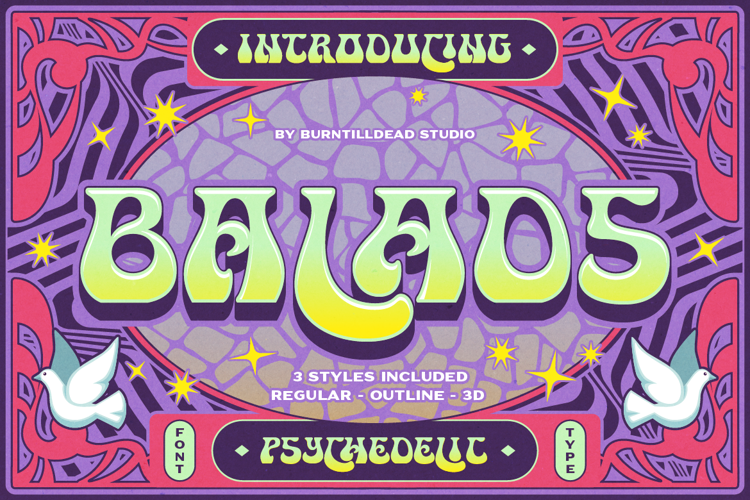
Balads Font
3 font family styles
3D Style
Outline Style
A psychedelic font with groovy 70s vibes. Balads comes in 3 trippy styles—perfect for music posters, retro merch, and magical creative projects.